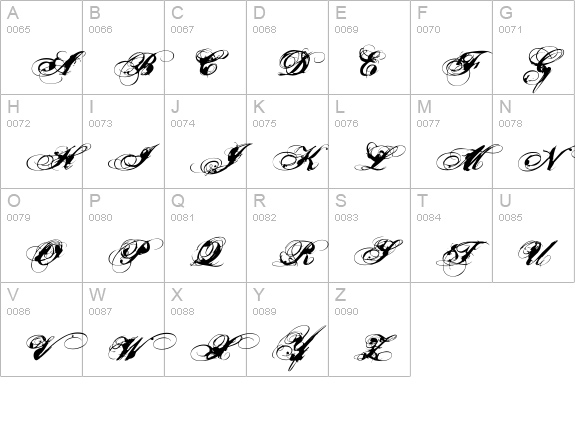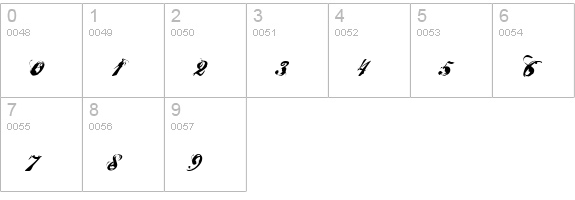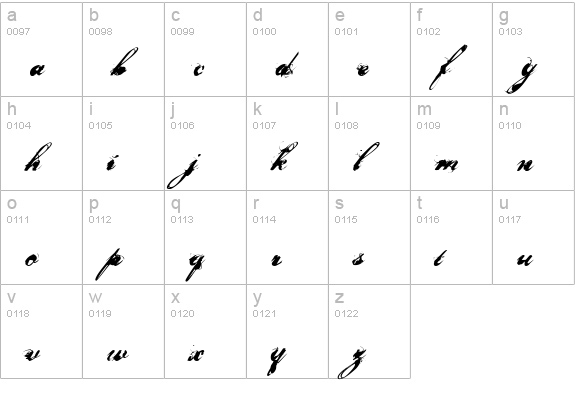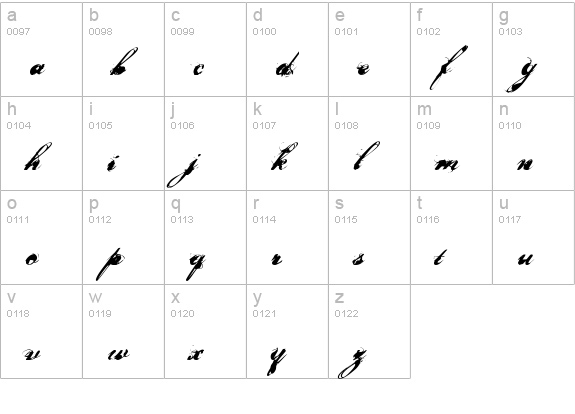
Nars 2 Font Details
Nars 2 font is a modern and stylish typeface that exudes elegance and sophistication. With its sleek lines and sharp edges, this font is perfect for creating eye-catching designs that demand attention. The Nars 2 font is versatile and can be used for a variety of projects, from branding to editorial design. What sets Nars 2 font apart is that it is available for free download at FontsMarket.com. This means that you can easily access this high-quality font without any cost, making it a valuable addition to your font collection. Whether you are a designer, a blogger, or a business owner looking to enhance your visual identity, Nars 2 font is a fantastic choice that offers both style and accessibility. Download Nars 2 font today and elevate your designs with its timeless appeal.